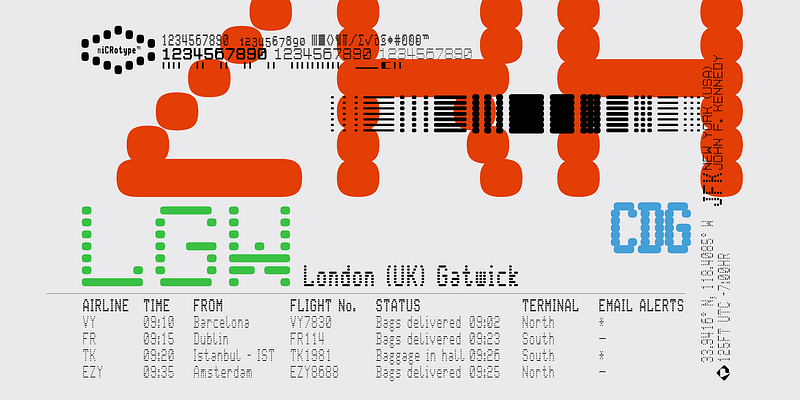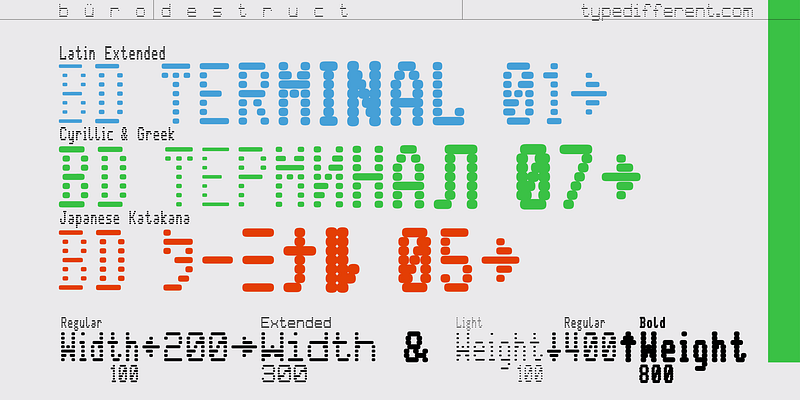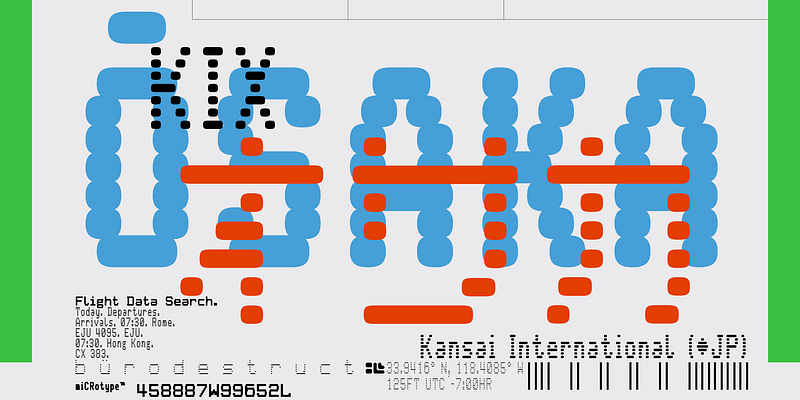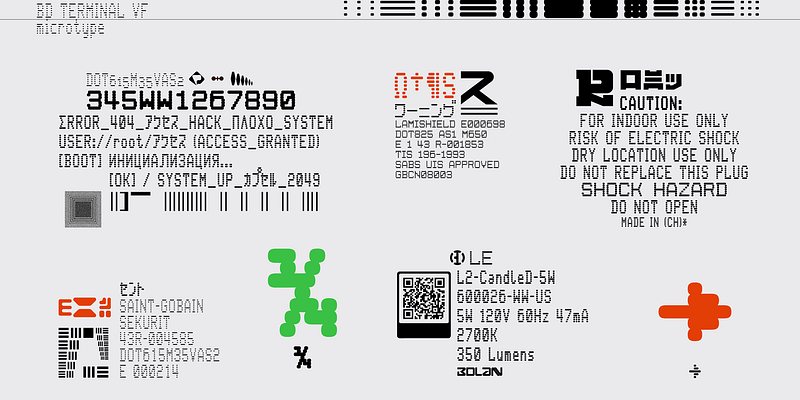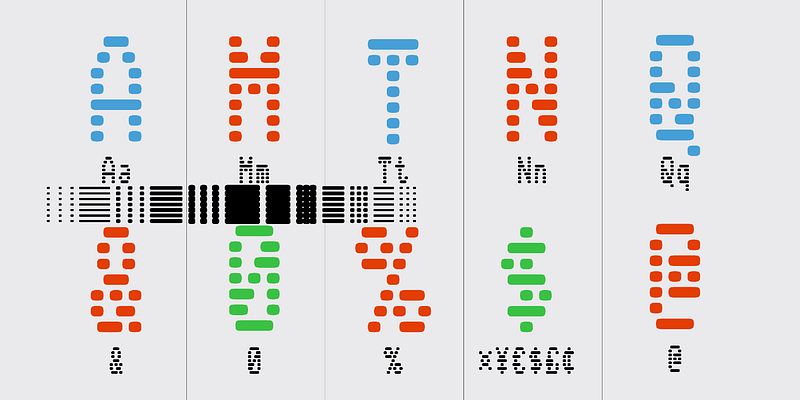
BD Terminal VF is a hyper-flexible terminal typeface that turns every layout into a living dot‑matrix display. Its bold blotch of dots can smoothly morph from tight, light micro-typo-graphics to wide, bold billboard‑style headlines, all from a single variable font file with 735 glyphs in total. It comes with wide Latin Extended, Greek, Cyrillic and Japanese Katakana language support, ready for use in interfaces, labels and experimental layouts across multiple scripts.